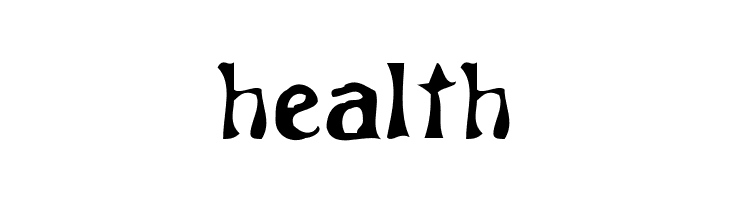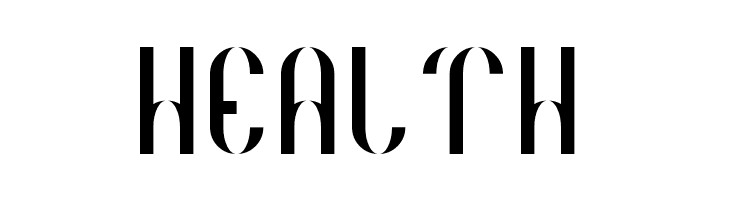
( Fonts by Daniel Werneck )
A bold, hand-drawn font with a gothic influence and dynamic strokes.
Illustrative dingbat font with classical antiquity themes.
( Fonts by Danilo Miguel )
A music-themed decorative font with elements of musical notation.
A bold, high-contrast font with sharp angles and modern flair.
( George Buxton - www.monkeycreative.co.nz )
A modern, geometric sans-serif font with clean lines and uniform stroke widths.
( Zetafonts - www.zetafonts.com )
A festive set of bold Christmas-themed icons for decorative use.
( Zetafonts - www.zetafonts.com )
Outlined, festive Christmas icon set with consistent line style.
A bold, dynamic font with sharp angles and a decorative style.
Playful and vibrant icons with a cartoonish style.
A playful, flowing script font with elegant, continuous strokes.
A dynamic and flowing script font with elegant, cursive letterforms.
( Rasdesign - Rodrigo Araya Salas - www.behance.net/rasdesign )
A bold, playful font with rounded edges and a hand-drawn feel.